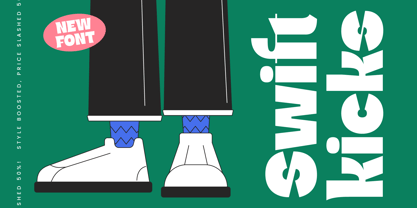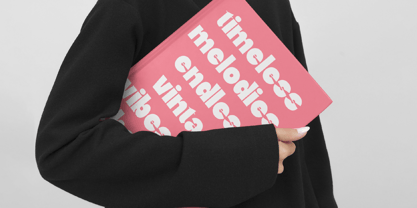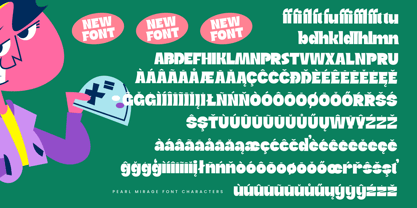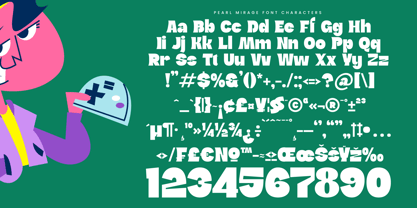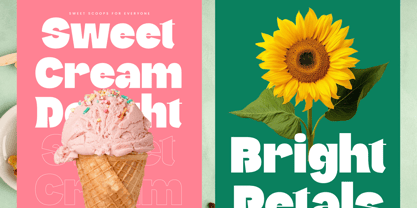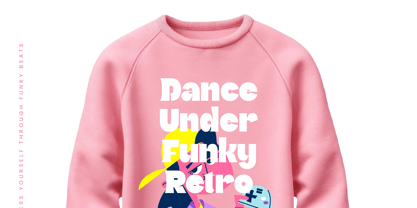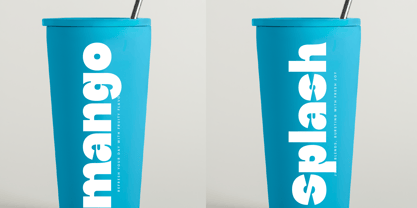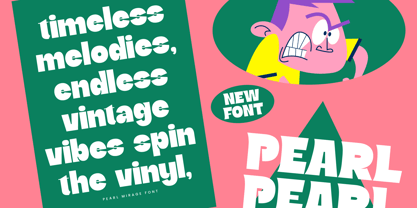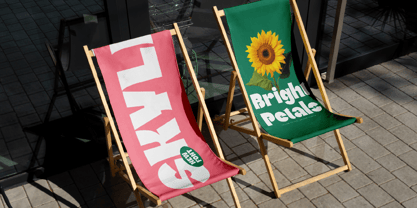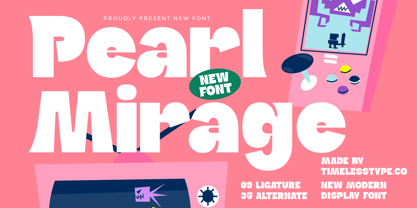
Pearl Mirage
The Pearl Mirage Font Family was designed by Heru Utama Putra and published by Timelesstype Studio. Pearl Mirage contains 2 styles and family package options. More about this family
Pearl Mirage - Modern Display Font ,Suitable for any projects such as: logos, branding projects, homeware designs, product packaging, mugs, quotes, posters, shopping bags, t-shirts, book covers, name card, invitation cards, greeting cards, label, photography, watermark, special events, and all your other luxury and beautiful projects that need a Luxury Serif taste.